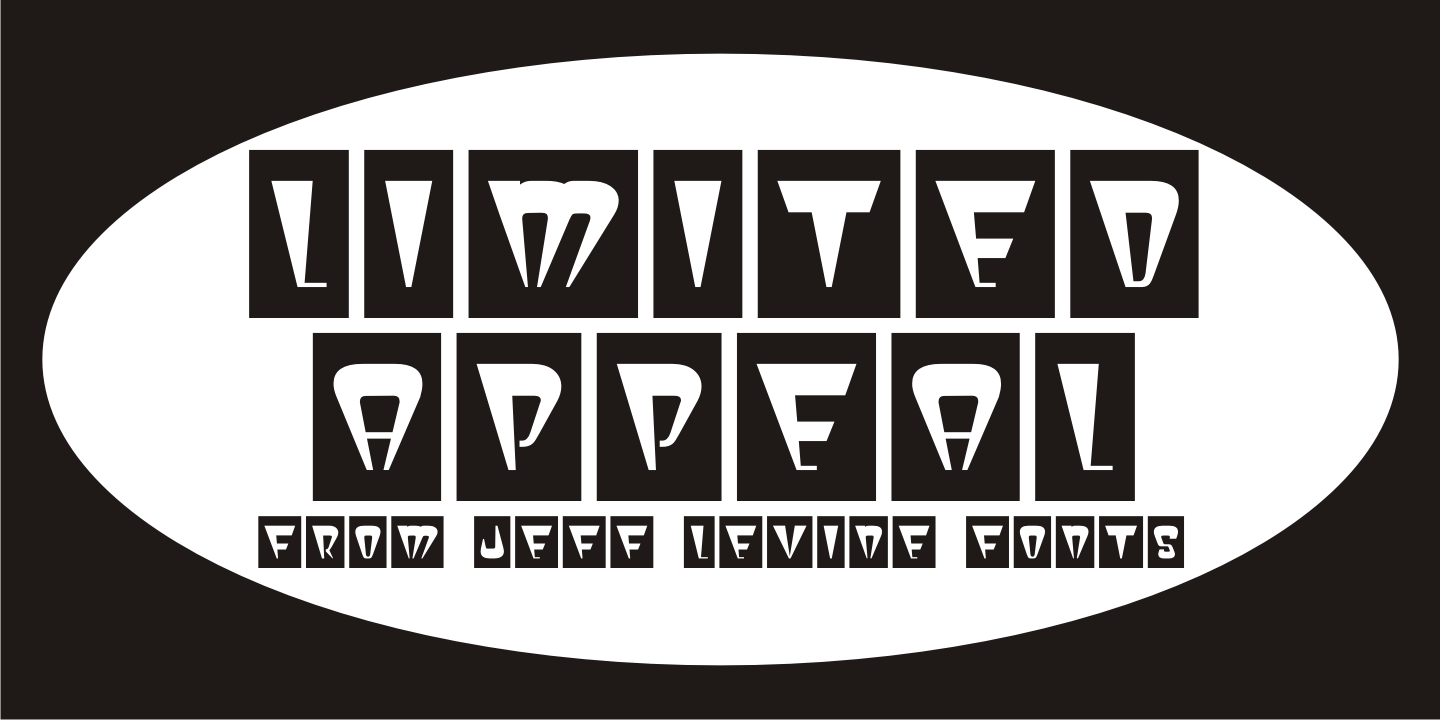
Limited Appeal
The cover of a 1950s-era catalog for the Freedman Novelty Company (of San Francisco California) had the word "Novelty" hand-lettered in an unusually angular type style against various geometric shapes somewhat resembling balloons.
While the lettering was quirky enough to warrant re-drawing as a digital font, the shapes would have presented a visual nightmare in design and spacing, so simple black rectangles were substituted and the letters appear in white.
Since novelty lettering of this type would never become "standard" in use, its function became the font's name, Limited Appeal JNL.
There is just a simple A-Z and 1-0 character set along with basic punctuation.